In the ever-changing digital world, impactful visual communication holds as much weight as your intended message. Even if your message is elaborate enough to cover all the details that a reader or audience needs to know, if it’s not serving visually, there’s a chance viewers may skip it. Especially for Urdu content creators, selecting the picture-perfect typeface plays a defining role in conveying professionalism and leaving a lasting impression. Discover a handpicked collection of 28 thin Urdu fonts, each with its own unique charm. Forget about the stuffy, condensed fonts that make your text look grumpy. These fonts are key to enhancing your Urdu text’s visual appeal. Whether it’s for social media posts, business presentations, or creative endeavors, these fonts are eye-pleasing and make your content comprehensible.
But you might be thinking, why focus on thin or sleek fonts? Well, bold or decorative fonts are used to highlight some crucial details, like in headings, book covers, or more. We cannot use such fonts for a long textual passage as it would be difficult to read for prolonged reading. For extensive text blocks, we need a font that is easily understandable, clear, and less complicated. A font having all these qualities will enhance screen legibility and positively affect overall readability. The fonts we are going to describe below have all these characteristics to make your boring texts look easier and more welcoming with their minimalistic charm.
Urdu, with its Perso-Arabic script is a sophisticated writing system. Even in its simplest form, it does not fail to offer grace to your text. However, choosing a perfect style can further increase its visual appeal and ability to convey your message in a proper way. Before moving directly to the thin and stylish Urdu fonts, let’s take a look at their attributes and what impact they have on your text.
We have arranged thin Urdu fonts into 4 categories to make it easier to pick according to your design requirements. Each set has its own appearance, style and feel of typeface.
Here is our careful collection of sleek and slender but Elegant fonts, which make your Urdu texts sophisticated with their delicate letterform and add a touch of personality to it.
| Sr | Font | Designer | Appearance |
|---|---|---|---|
| 1 | Swissra (Thin) | Ali Almasri | Regular Arabic face, rounded, and well-balanced |
| 2 | Doran (Thin) | Fereshte Iranshahi & Reza Bakhtiarifard | Wide Qalam, clear, uncluttered |
| 3 | MB Sarem Mohsin Kingrai | Sanaullah Mangnejo Sarem | Thin Sindhi display, well-proportioned, monospaced |
| 4 | Portada ARA (Thin) | Veronika Burian & Jose Scaglione | Modern, clear, legible, warm |
| 5 | SF Arabic (Thin) | Apple | Highly legible, inspired by Naskh with a modern touch |
| 6 | Noto Sans Arabic UI (Thin) | Nadine Chahine | Simple, readable, cross-platform compatible |
| 7 | GE Dinar Two | Mourad Boutros | Contemporary, professional, clean lines |
| 8 | Dubai W23 Light | Nadine Chahine et al. | Modern, versatile, clean strokes |
| 9 | Mada | Khaled Hosny | Modern, minimalist, low contrast |
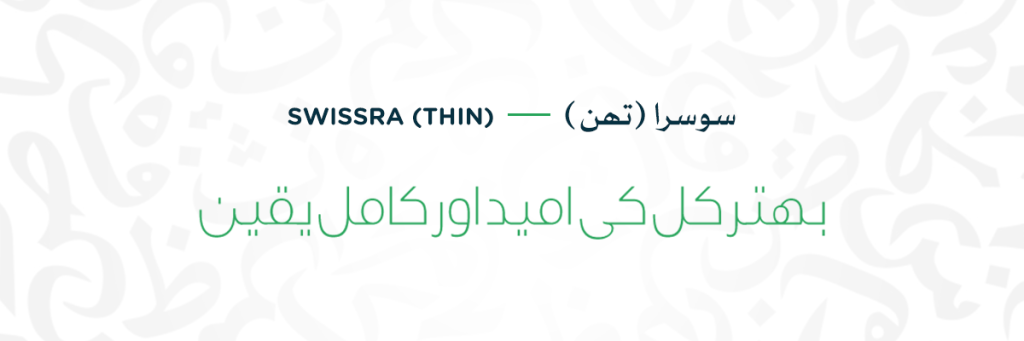
Swissra is a regular Arabic font with a subtle roundness, giving it a lighthearted feel. Although it’s a versatile font family, our focus here is on its thin variant or weight, Swissra (thin). It is influenced by the Swiss graphic style and designed by an Arabic font developer, Ali Almasri. With its clear and uncluttered letterforms, the font can be utilized for formal writing in newspapers, documents, and more. The font offers constant thickness throughout the letterform with a visible stroke that increases its legibility and makes it easy to read. This elegant font is streamlined with a compact baseline, giving it a modern feel.
Doran is a diverse Qalam writing Persian font with symmetrical letterforms, promoting readability with useful aesthetics. Two respected Iranian font designers, Fereshte Iranshahi and Reza Bakhtiarifard, designed this versatile typeface family. The font offers a clean appearance with no extra embellishments to complement your designs. Doran is an all-purpose font with six different weights or styles. However, its bolder weights have a more calligraphic feel than the Doran light. It offers soft and blunt corners, with thin strokes and monospaced letters, increasing the font readability. It can be used for regular body text, branding, formal writing, etc.
MB Sarem Kingrai is a thin or sleek Sindhi font with well-aligned letterforms. Designed by famous Sindhi font designer Sanaullah Mangnejo Sarem, this font has a streamlined appearance with evenly spaced letters. MB Sarem Kingrai is a delicate font with consistent thickness throughout, increasing its readability and appeal on digital platforms. Its solid stroke with horizontal emphasis and a compact baseline further add an elegant effect to its modern style. What makes this font attractive is its modern composition with hints of Sindhi culture, smooth curves, and rounded zero spacing. It is best for writing long texts and other applications, including posters/flyers, branding, documents, etc.
Portada Arabic is a contemporary Arabic font family with 10 different weights and styles. Designed by Veronika Burian and Jose Scaglione, this font offers a clear appearance and is highly legible even in constrained digital prints or designs. Its formal appearance increases its appeal and usage in print and digital media, particularly for long textual blocks or clear-screen use. It offers even letter spacing with constant thicknesses and solid and impactful strokes, even in lighter weights. Therefore, such font can be utilized in applications where impact is required with readability.
SF Arabic is a regular-style Arabic face font family with a neat outlook. Designed by Apple Inc. in the early 2000s, this display font offers high-screen legibility. Because of its easy to read letterforms, this font has been used in Apple devices and displays. Although it is not a calligraphic font, it is inspired by the Naskh scripting technique with a modern touch. The font is designed to be flexible and space-efficient and so easily fits in vertically compressed interfaces. However, its use is somewhat restricted as according to the Apple Inc. license, the font can only be utilized for modeling UI’s for software applications that based on Apple’s iOS, macOS, iPadOS, or tvOS.